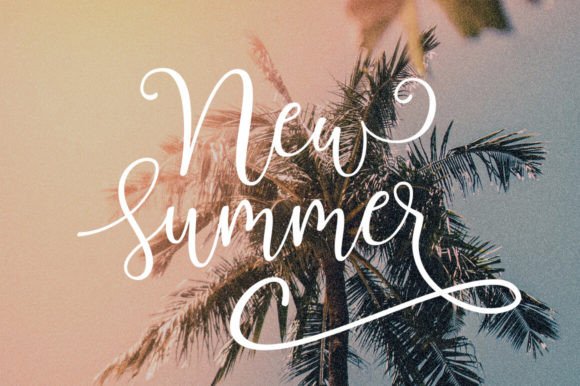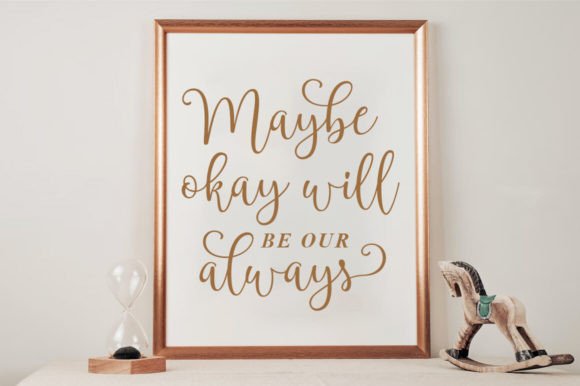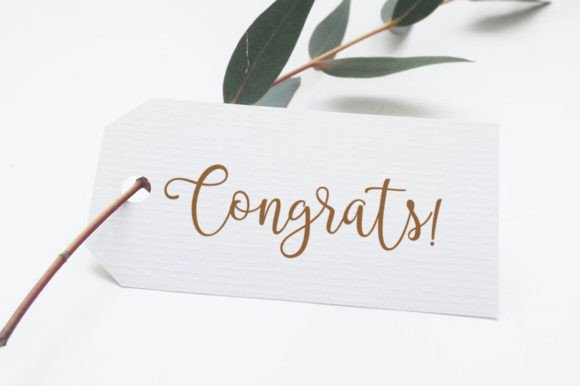
Introduction to Nottingham Font
Nottingham Script is a beautiful and adorable script handwritten font we designed to easily represent the lovely, fun, and friendly taste/personality.
Nottingham Script would be perfect for invitation, logos & branding, photography, advertisements, watermark, social media posts, product packaging, product designs, label, wedding designs, stationery, special events, or anything that need a beautiful and lovely taste This font is PUA encoded which means you can access all of the amazing glyphs and ligatures with ease.
Nottingham Font offers exceptional quality and versatility, making it a valuable addition to your design toolkit. Whether you’re creating for personal projects or commercial use, Nottingham Font delivers professional results.